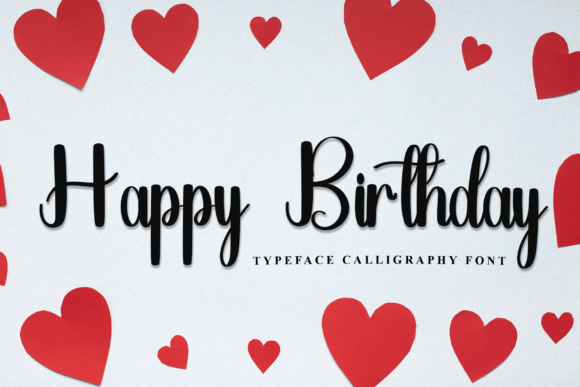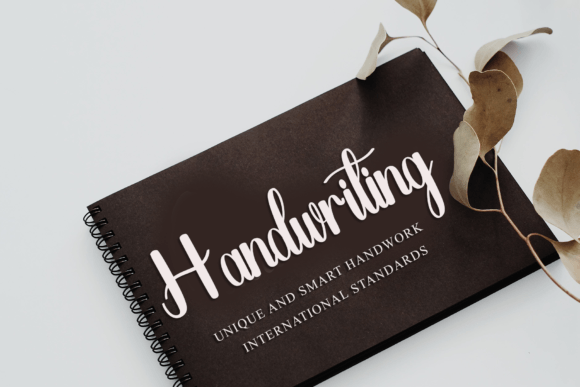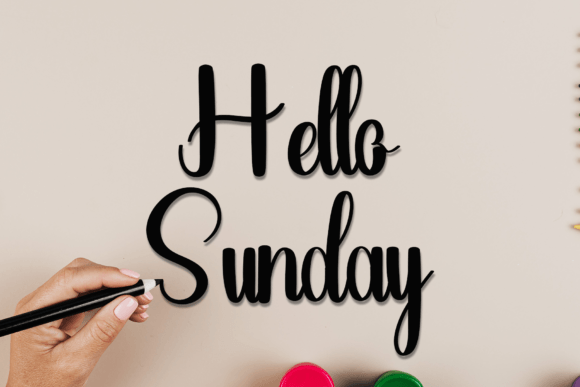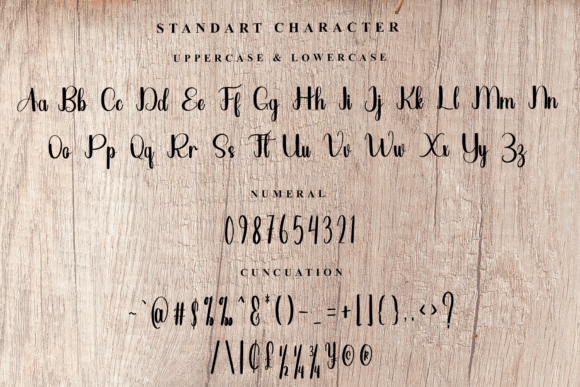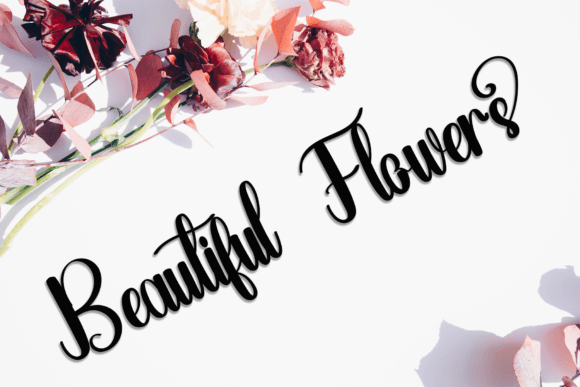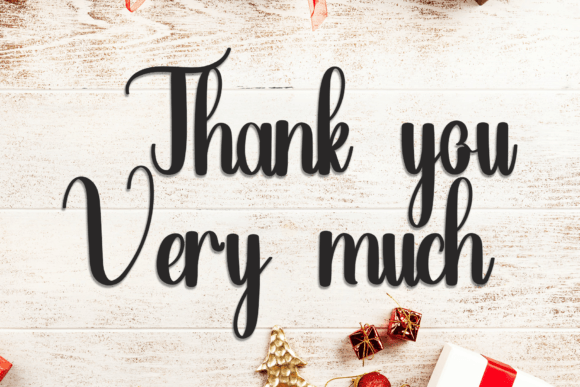
Introducing Flowers Bloom Font: The Perfect Holiday Typeface
The holiday season is upon us, and what better way to get into the spirit than with a festive and happy typeface? Look no further than Flowers Bloom Font, a decorative font that captures the essence of the holiday season with its unique flair and charming elements. In this article, we’ll dive into the world of Flowers Bloom Font, exploring its features, uses, and benefits for designers and crafters.
A Festive and Happy Typeface
Flowers Bloom Font is a one-of-a-kind typeface that exudes joy and festivity. Its decorative elements and unique design make it perfect for adding a touch of charm to your designs. Whether you’re creating greeting cards, gift labels, or holiday-themed projects, this font is sure to bring a cheerful and nostalgic atmosphere to your words.
Flowers Bloom Font is specifically designed for holiday-themed projects, making it an ideal choice for designers and crafters looking to add a festive touch to their work. With its playful and whimsical design, this font is perfect for:
- Greeting cards: Create beautiful and unique holiday greeting cards that will stand out from the crowd.
- Gift labels: Add a personal touch to your gifts with custom labels featuring Flowers Bloom Font.
- Holiday-themed projects: From party invitations to festive posters, this font is perfect for any holiday-themed project.
Flowers Bloom Font offers a range of benefits for designers and crafters, including:
- Unique and festive designs: Add a touch of personality to your work with this one-of-a-kind font.
- Ease of use: With PUA coding, you can easily access all the glyphs and ligatures you need.
- Versatility: Use Flowers Bloom Font for a wide range of projects, from greeting cards to holiday-themed posters.
- Time-saving: With a wide range of glyphs and ligatures at your fingertips, you can save time and effort in your design process.
Flowers Bloom Font is a festive and happy typeface that’s perfect for adding a touch of charm to your holiday designs. With its decorative elements, unique flair, and PUA coding, this font is a must-have for designers and crafters looking to create beautiful and unique holiday-themed projects. So why wait? Download Flowers Bloom Font today and start adding a touch of festive fun to your designs!